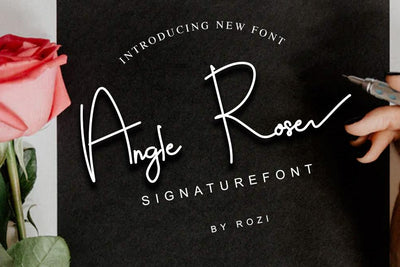
Angle Rose
Angle Rose is our newest script font, a product font with a modern, artistic style. each letter has a strong and beautiful character to be used as a title, a sentence that if you use it creates an elegant effect in the appearance of your design.
not limited to that, the bold calligraphy font is designed to keep paying attention to the beauty of each letter, there are alternate options for the letters which are certainly easy for you to access, so you can automatically customize the letters you want to enhance the visual appearance of your design project.
This font also offers harmoniously beautiful abstract typography for a wide variety of design projects. This font is also perfect for wedding invitations, quote designs, social media business designs, advertisements, trademarks, food and beverage promotion banners, text, posters, signatures, and any design that requires handwriting.
This font is equipped with uppercase, lowercase, numbers, punctuation marks, swhas, and several variations on each character including multi-language.
- Standard glyphs
- Ligature